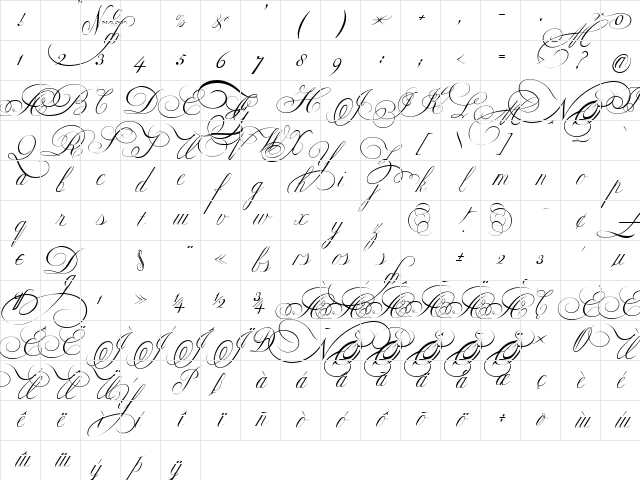
Complete Ekaterina Velikaya One Regular glyph index. Displaying only characters natively supported by Ekaterina Velikaya One Regular font.
Ekaterina Velikaya One is a composed and adaptable typeface that performs quietly and consistently across a wide range of design contexts.
Who designed the Ekaterina Velikaya One Regular font?
This font was published by Alexandra Gophmann (rusification). Check the technical specs section for copyright and designer details.